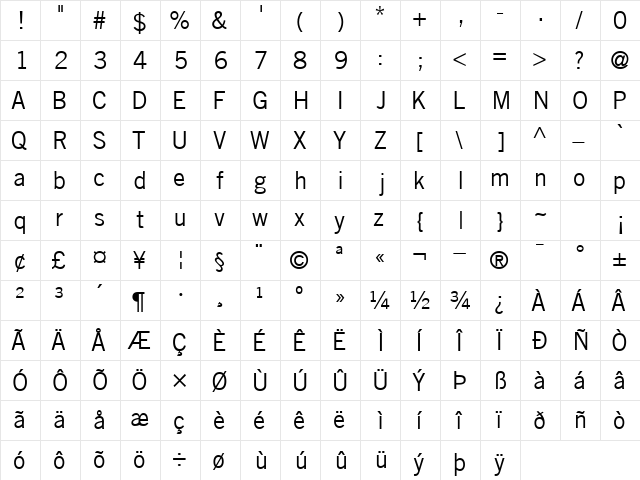
CommerceSSK Regular
Design Context for CommerceSSK Typeface
CommerceSSK takes a measured approach to typography — its balanced proportions and neutral character make it a reliable workhorse for both digital and print work.